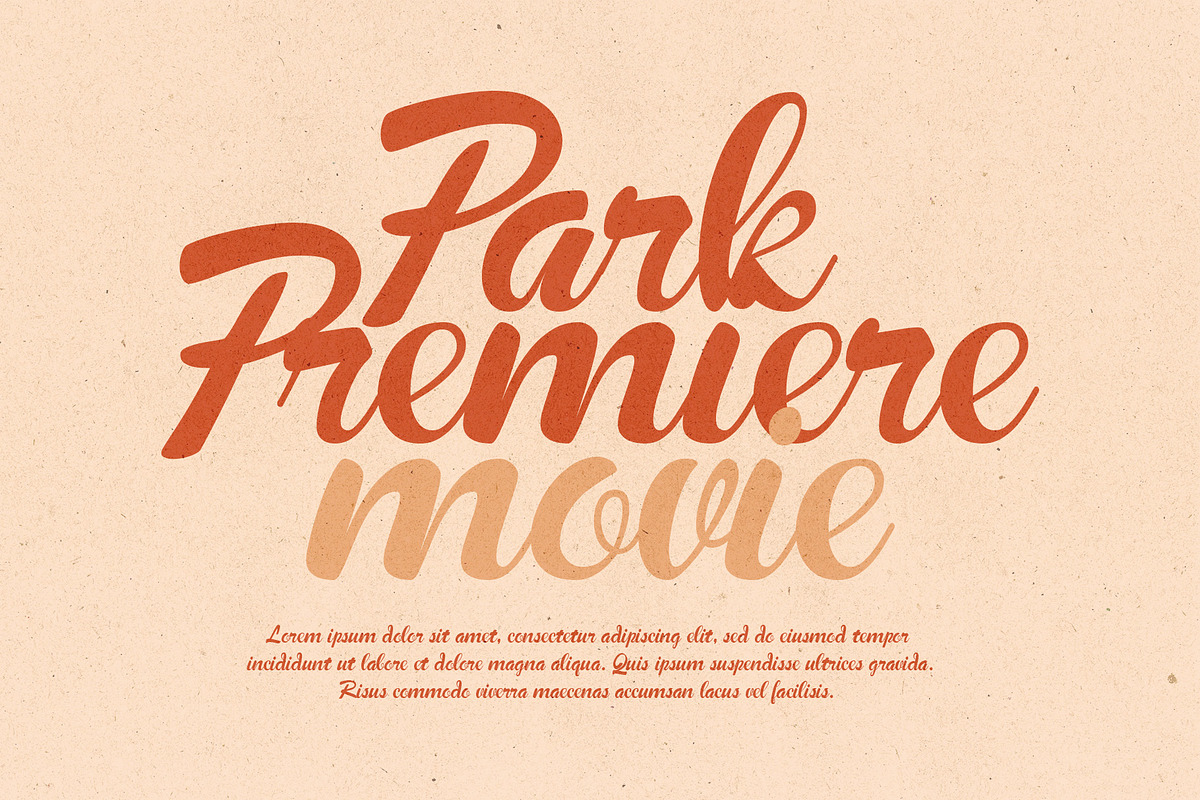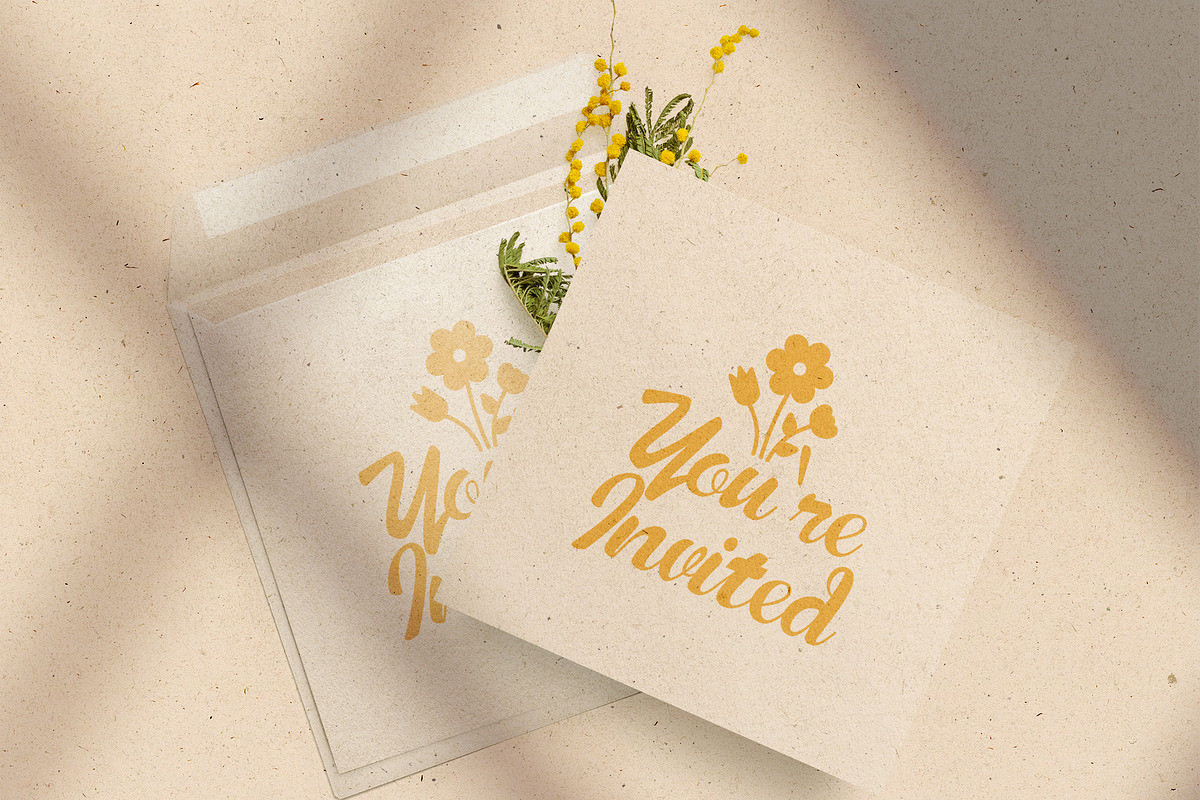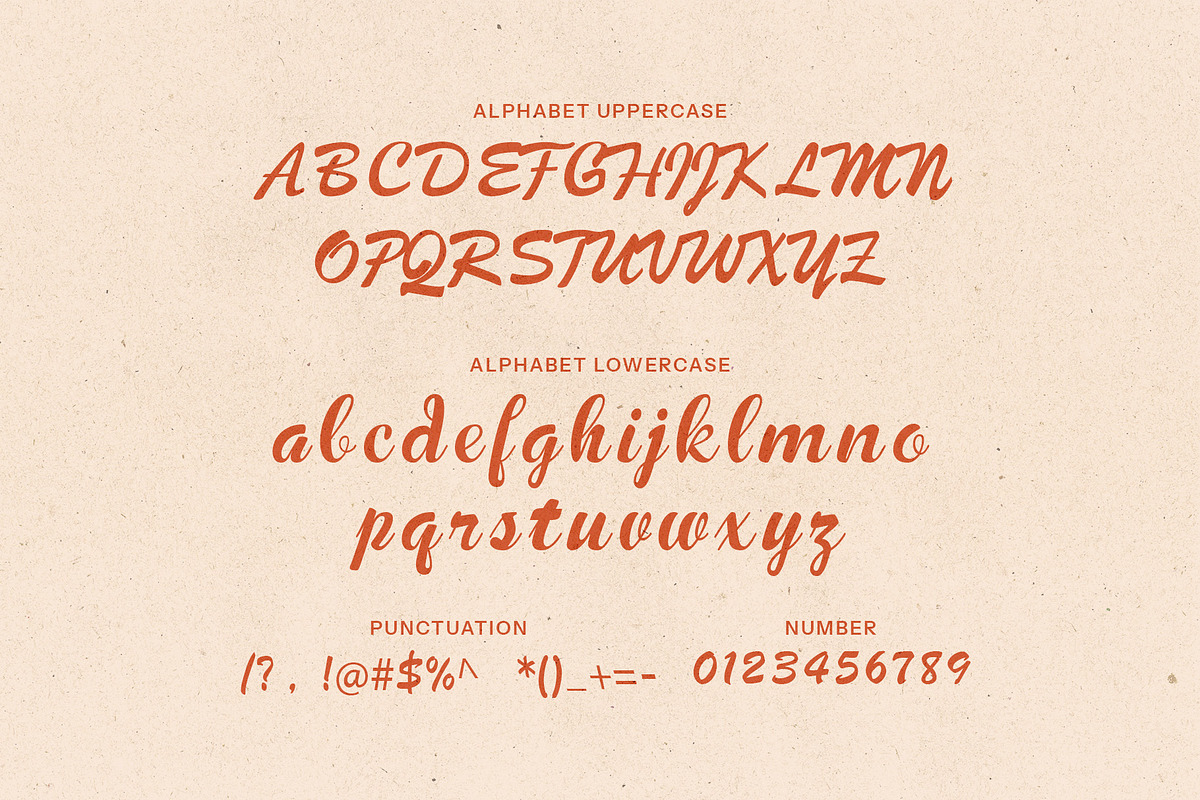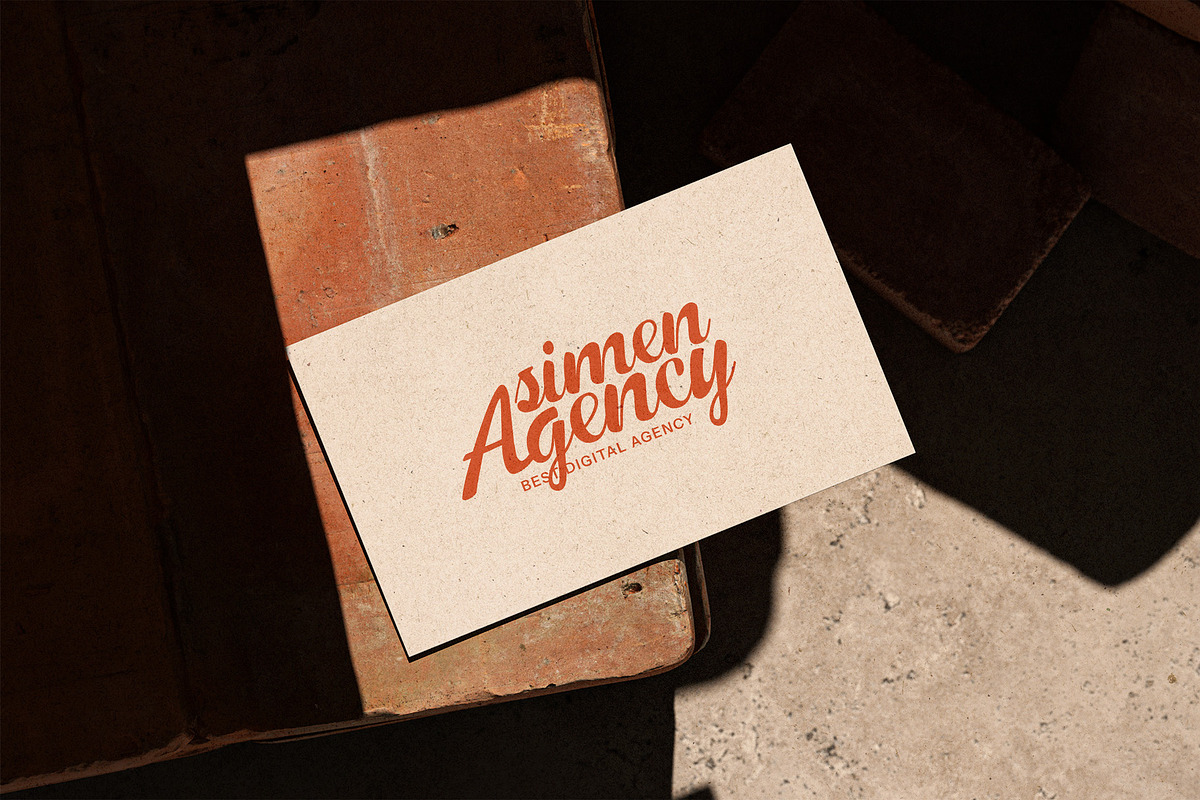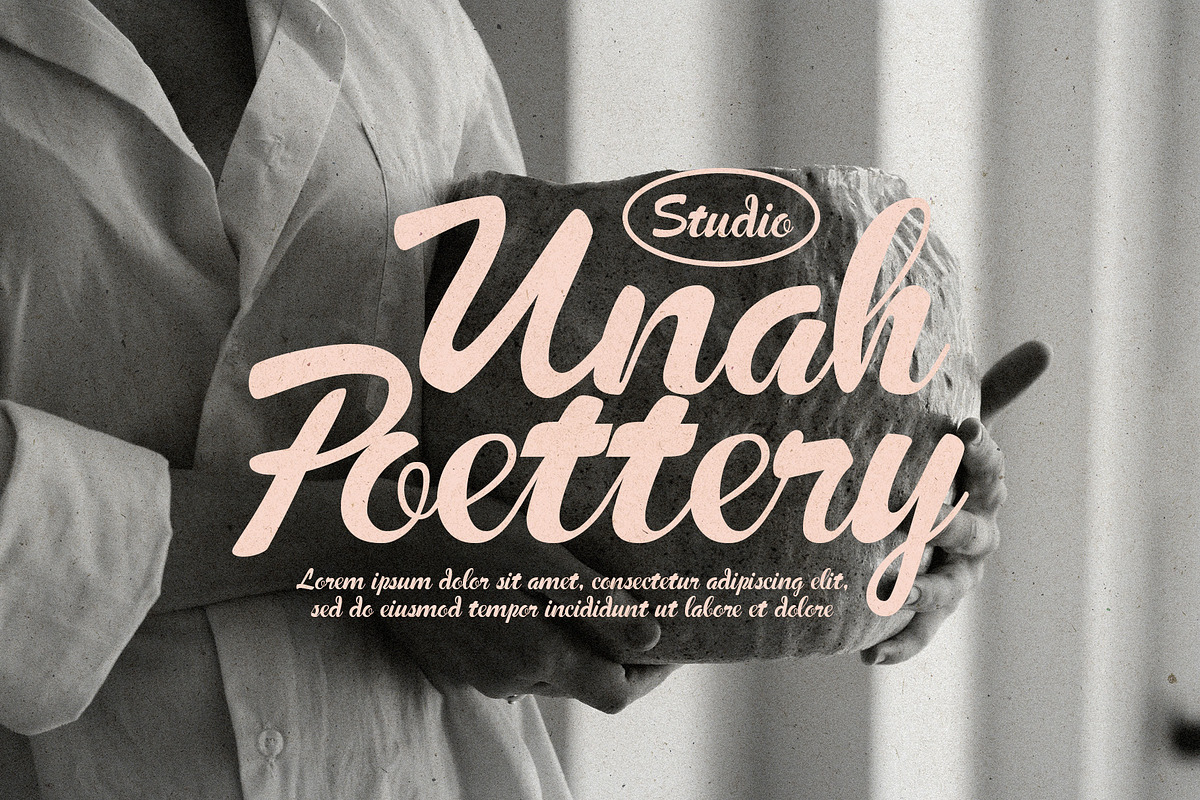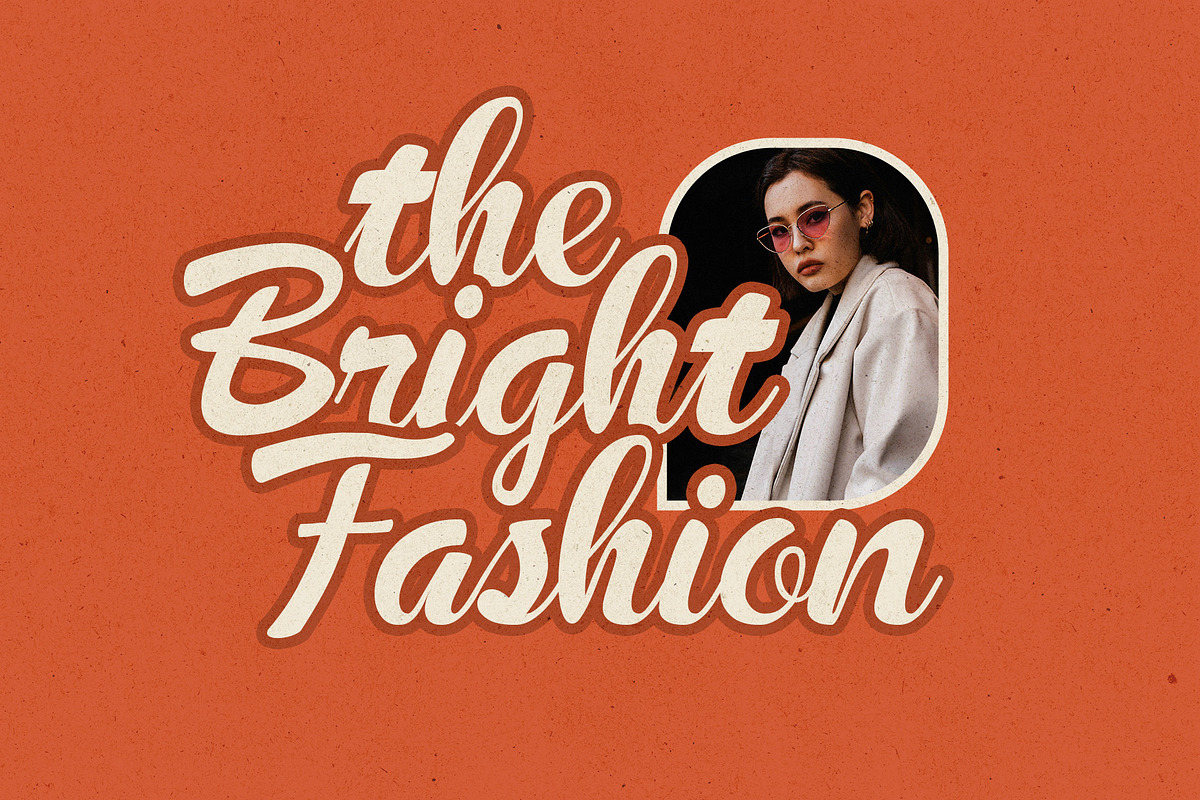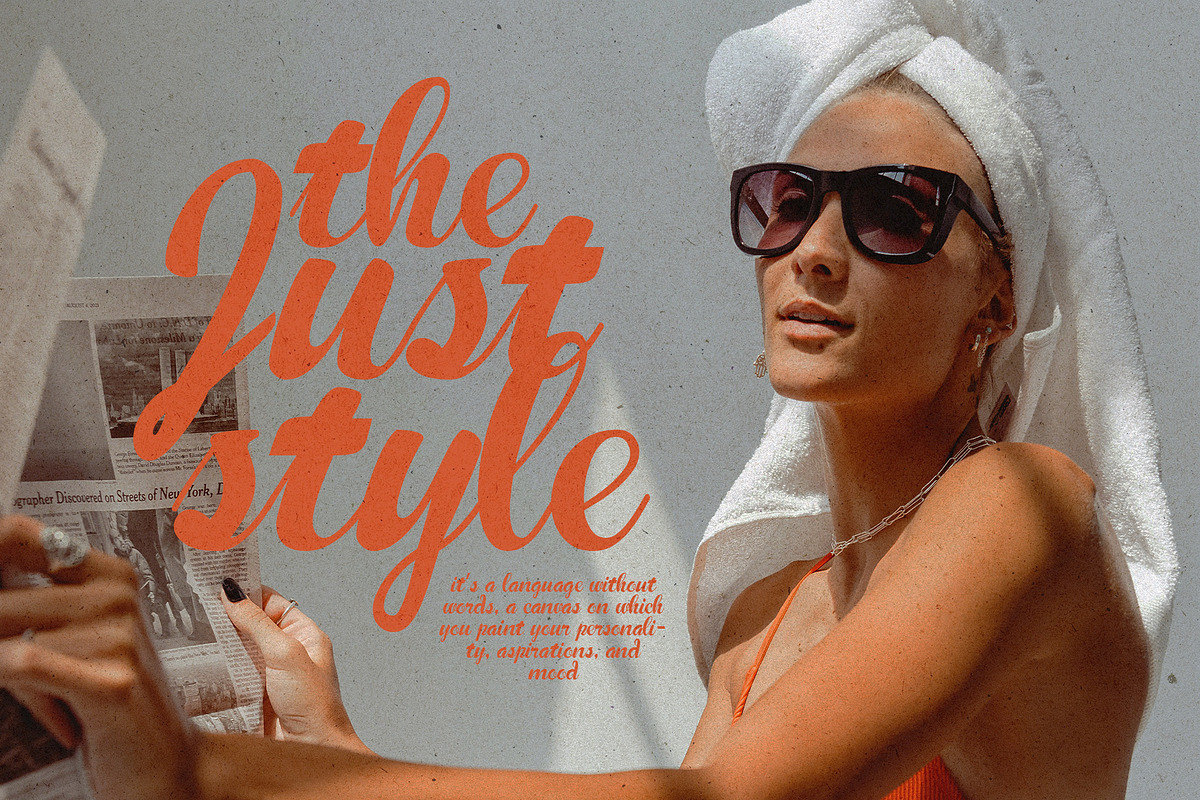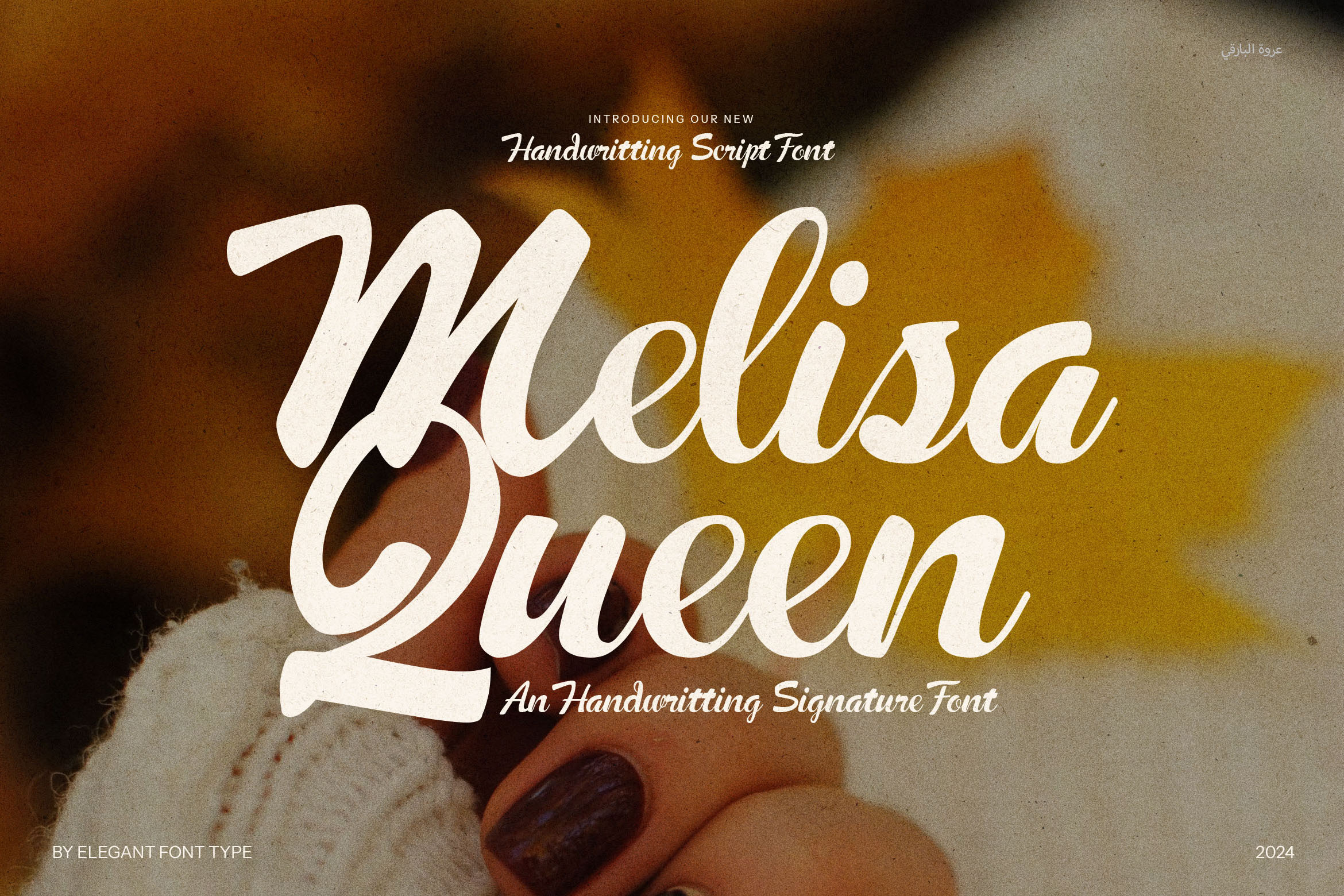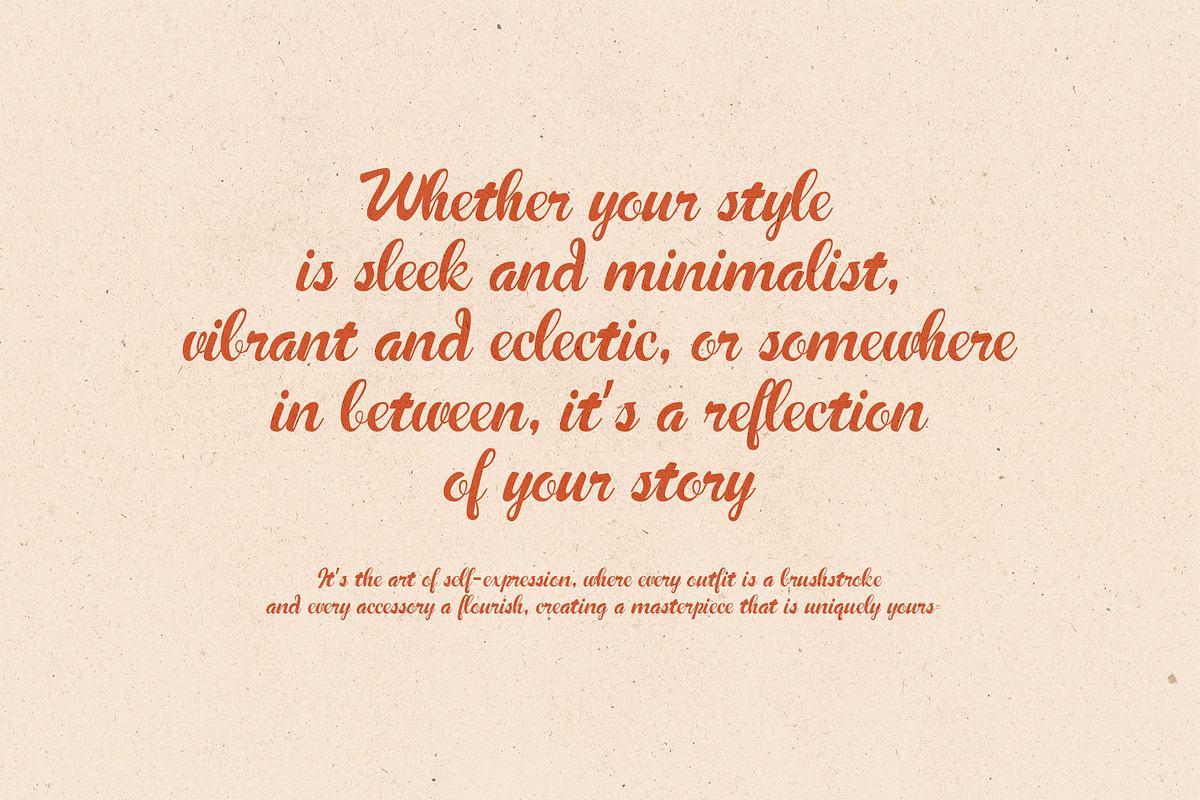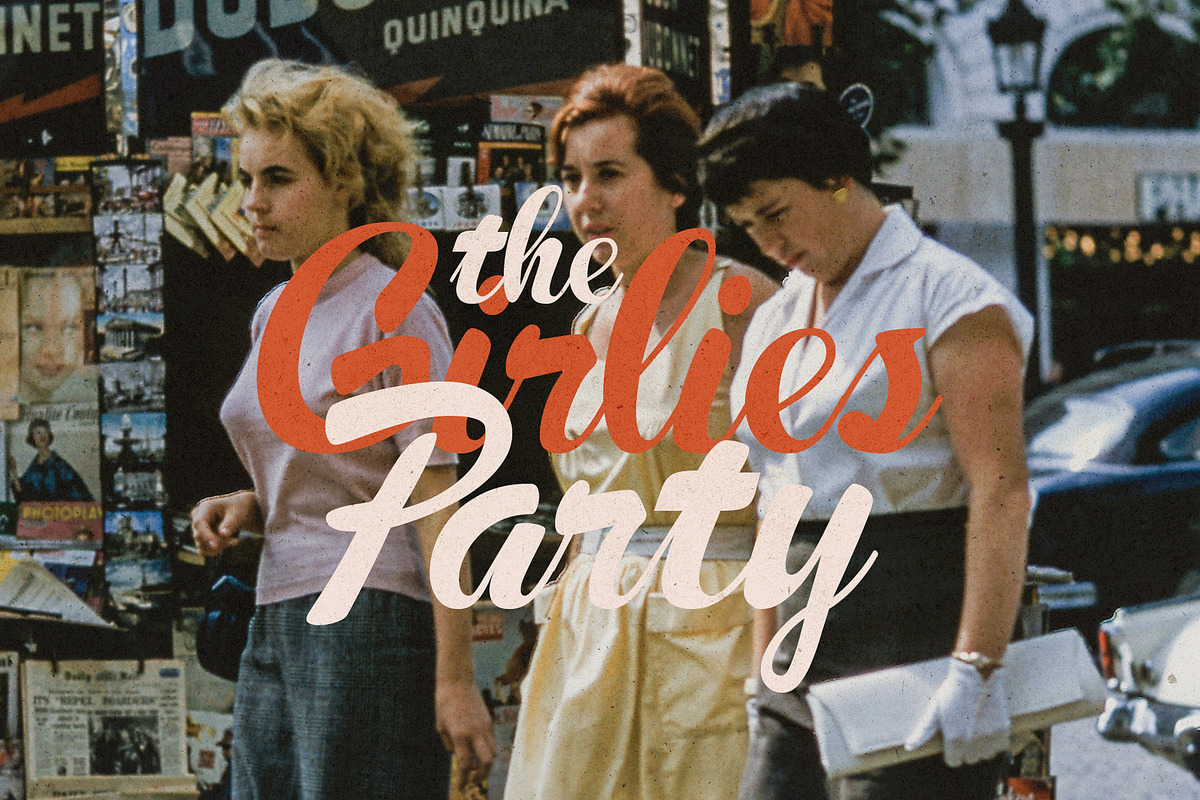
Melisa Queen Script Font
Melisa Queen Script Font is a sophisticated and graceful handwritten typeface designed to bring a luxurious and feminine touch to your creative work. With its flowing lines, refined curves, and a wide selection of calligraphic alternates and stylistic ligatures, this font embodies timeless elegance with a modern twist.
Ideal for wedding invitations, branding designs, signature-style logos, and editorial layouts, Melisa Queen was created for designers who want to evoke romance, charm, and professionalism all at once. Each letter is drawn with care, creating a smooth, fluid texture that mimics natural handwriting but maintains perfect visual harmony.
This script font is especially powerful for projects that require a personal and polished feel—think event stationery, boutique branding, luxury product packaging, beauty blogs, and high-end magazine covers. Whether you’re creating stunning Canva templates, designing a fashion-forward poster, or crafting a heartfelt album cover, Melisa Queen adapts beautifully to every creative direction.
Melisa Queen offers robust OpenType features, allowing you to experiment with a variety of swashes, alternates, and decorative glyphs, helping you customize each word to suit your specific vision. This versatility makes it a favorite for both digital and print applications—from business cards to social media content, from wedding monograms to personal brand logos.
Melisa Queen Script Font is your go-to choice when elegance, creativity, and emotional appeal are key. Let your words dance across the page with beauty and precision—and give every project a royal signature touch.